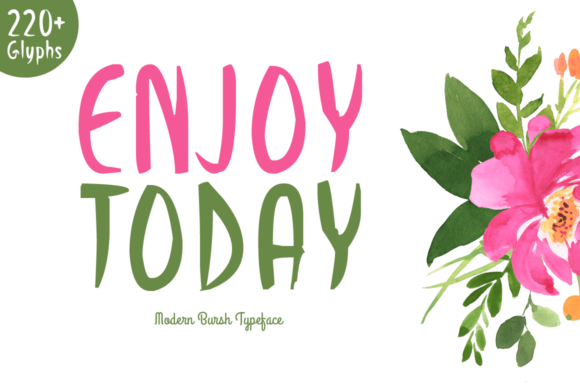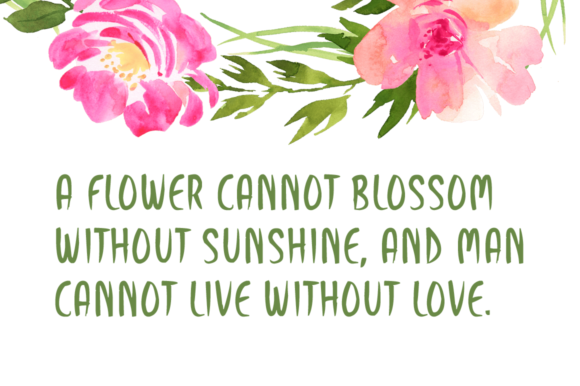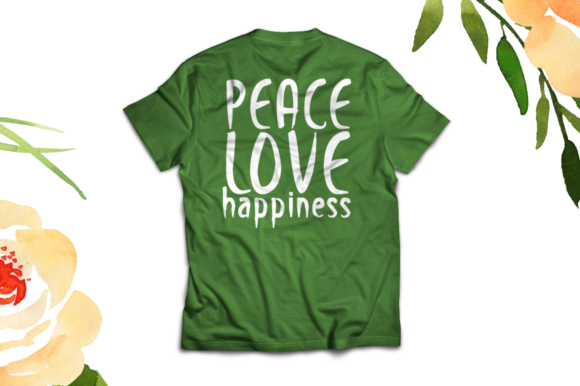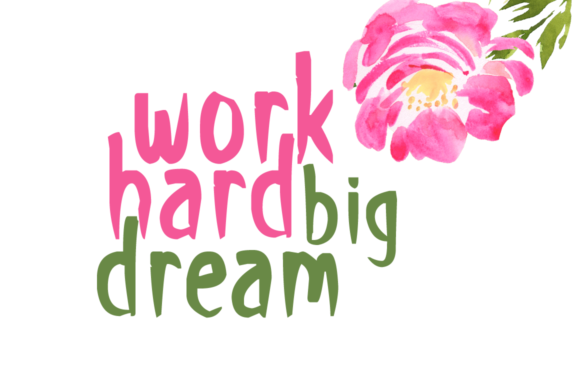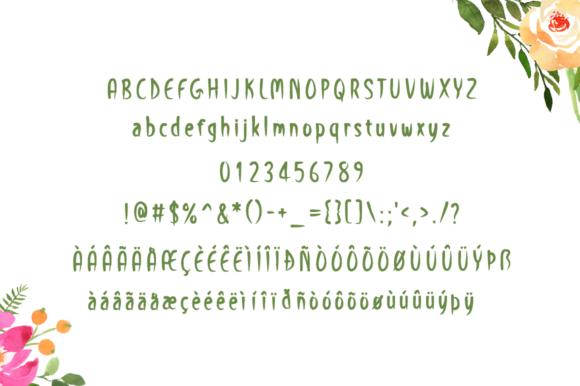
Enjoy Today Font
About Enjoy Today Font
The Enjoy Today is a brand new modern brush font. It’s perfectly suited for stationery, logos, t-shirts, papers, print designs, website headers, photo frames, flyers, music covers, posters, image sliders and much more.